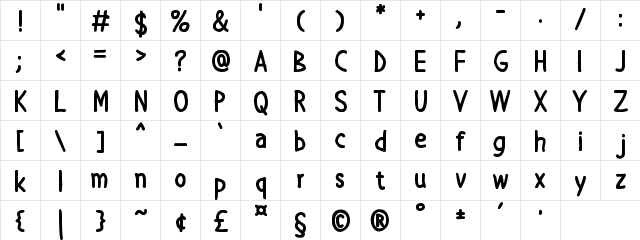
Hello Christmas - Free Regular
Design Context for Hello Christmas - Free Typeface
Hello Christmas - Free is a composed and adaptable typeface that performs quietly and consistently across a wide range of design contexts.